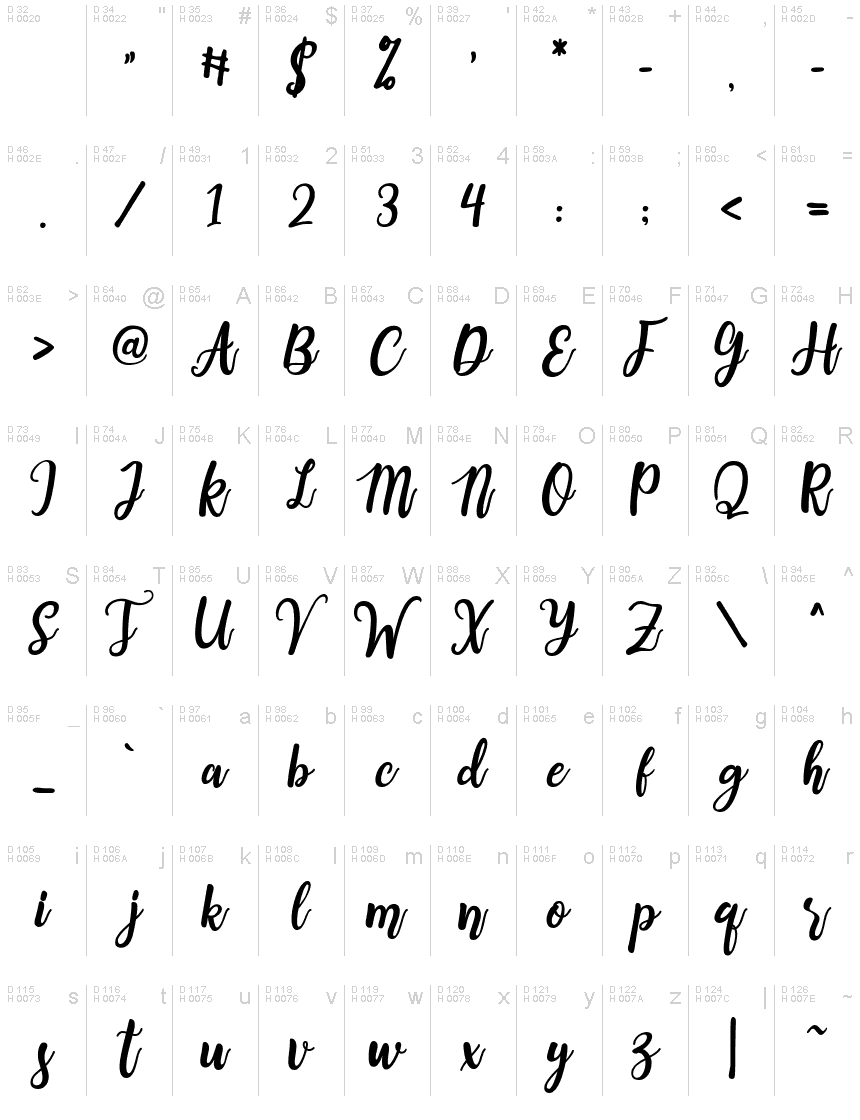
Warm Spring Regular
Warm Spring, a light, handwritten font designed by Nico Muslib, offers an elegant yet playful touch to any project. Perfect for adding a personal and creative feel to invitations, logos, posters and more.